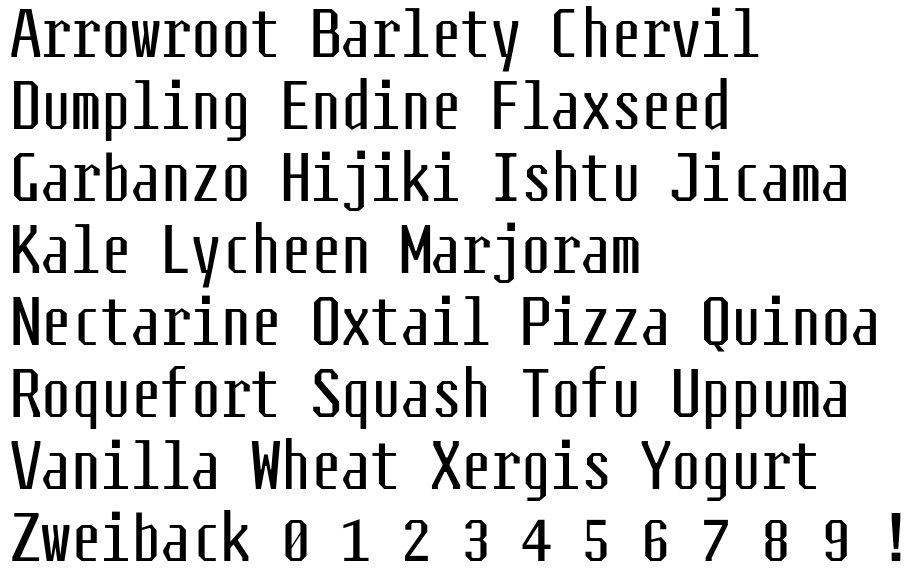
Steps Mono for Étapes Magazine
Steps Mono was created by Raphaël Bastide and Jean-Baptiste Morizot for the french magazine étapes: to demonstrate a collaborative design on the same font. Download sources and font files. Contributions can be accepted on the repositoryView the magazine.